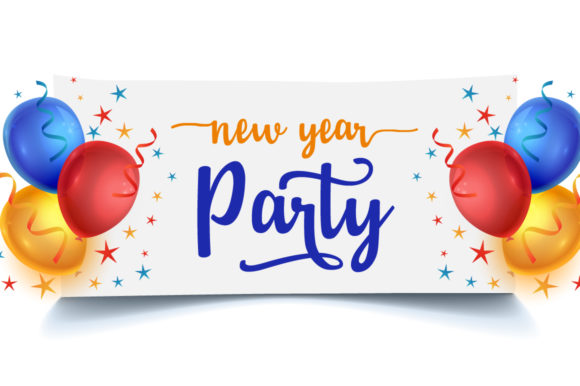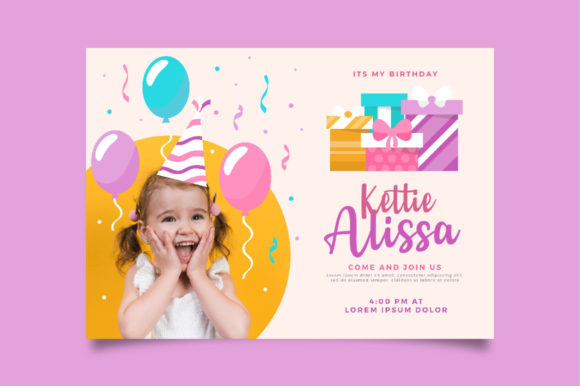
My Birthday Font
db-ku.com - Script & Handwritten -- My Birthday is a beautiful script handwritten font with swash glyphs, front and rear tails. It is PUA encoded which means you can access all of the glyphs and swashes with ease!